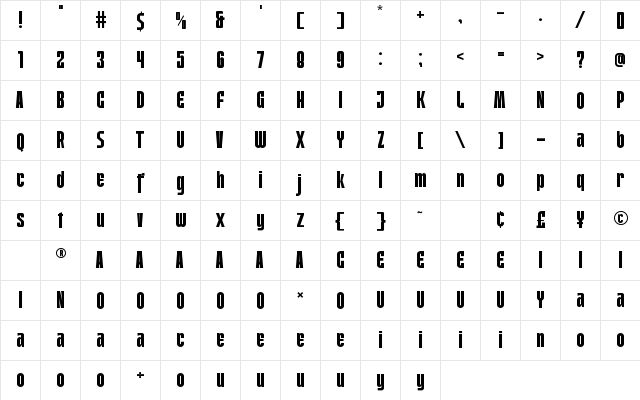
All Americans Regular Free Font
All Americans Regular
Foundry: Lettercorner Studio
Designer: Muhammad Afif Ersya
Design Context for All Americans
All Americans is a composed and adaptable typeface that performs quietly and consistently across a wide range of design contexts.